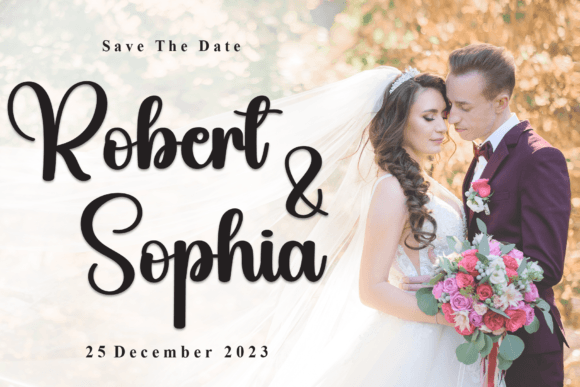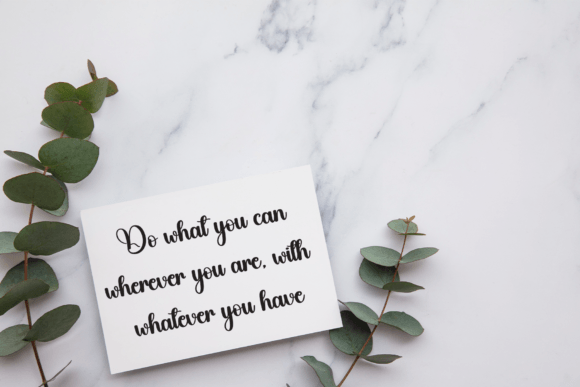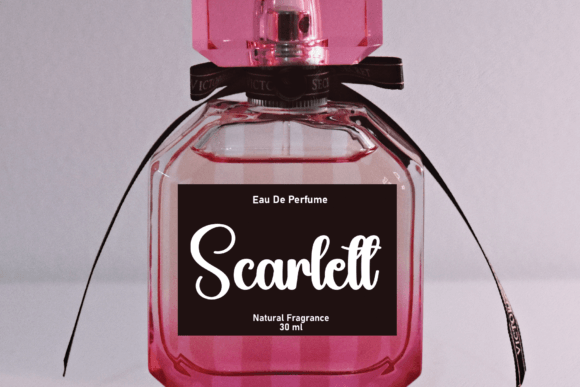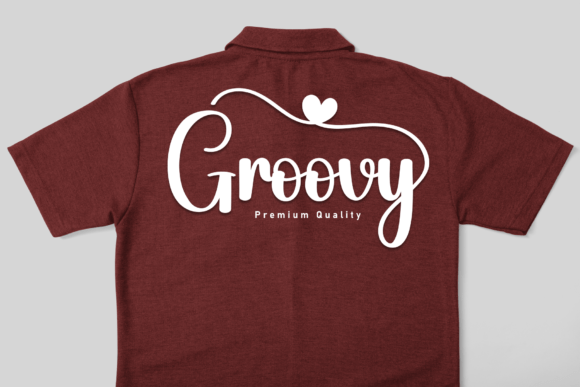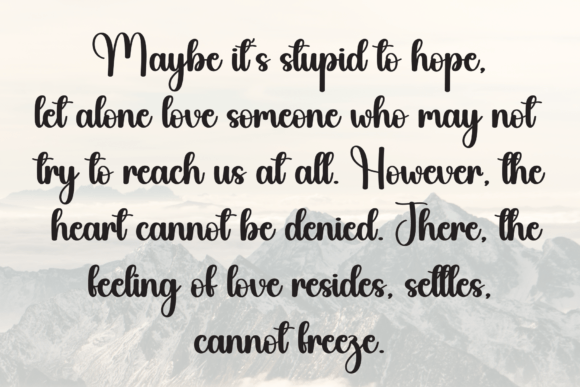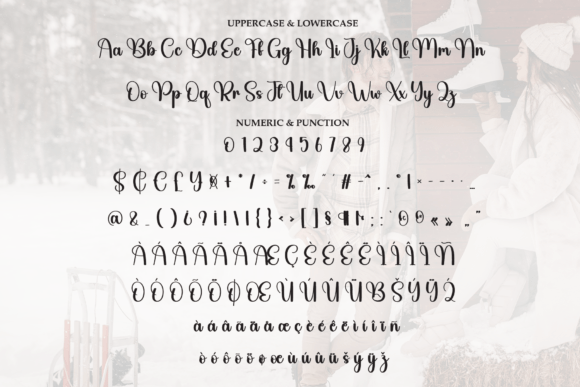
Discover the Timeless Beauty of Deary Font
You know that moment when you stumble upon a font that perfectly captures the essence of your creative vision? It’s like finding a missing piece to a puzzle, and everything falls into place. For designers and creatives, this moment is a treasure, and it’s exactly what Deary Font has to offer.
Deary Font is a flowing handwritten font that exudes elegance and sophistication, making it perfect for your favorite projects. With its incredibly distinct and timeless style, this font is sure to leave a lasting impression on your audience. Whether you’re working on a branding project, designing a wedding invitation, or creating a stunning piece of art, Deary Font is the perfect companion to bring your vision to life.
Deary Font Key Features
- Unique Characteristics: The font features a unique, modern design with a friendly and approachable feel, making it ideal for branding, advertising, and editorial content.
Designer Review: Deary Font
Overall, I was quite excited to dive into the Deary Font, but after giving it a thorough review, here are my thoughts.
- The Deary Font has a beautiful, unique aesthetic that’s perfect for creative and artistic projects. Its cursive script style is both elegant and whimsical.
- The font has a wide range of ligatures and swashes, which can be really useful for designers looking to add a touch of personality to their work.
- The font is highly legible, even at smaller font sizes, making it a great choice for body text.
- The Deary Font is not suitable for formal or corporate projects, as its playful style may not convey the level of professionalism required.
Overall, the Deary Font is a beautiful and versatile choice for designers looking to add a touch of creativity to their projects. While it has some limitations, it’s well-suited for artistic and non-formal projects. I would recommend it to designers looking for a unique script font.
Tips for Getting the Most Out of Deary Font
For the best results, use Deary Font for titles, headings, and emphasis. Combine it with other fonts for a unique and visually appealing design. Experiment with different font sizes and styles to add depth and interest to your text.
Deary Font is ideal for:
– Wedding invitations and stationery
– Branding and logos
– Social media graphics and ads
– Digital and print publications